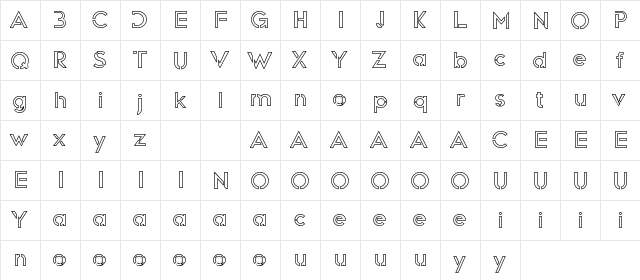
Myron Hector Demo Outline Regular
Design Context for Myron Hector Demo Outline Typeface
Myron Hector Demo Outline brings ornamental detail and strong personality to headlines and identities, where visual impact matters more than quiet functionality.
Font Pairing: Pair with a clean neutral sans-serif for body copy to let Myron Hector Demo Outline's character lead without overwhelming the composition.
Pro Tip: Use Myron Hector Demo Outline exclusively at display sizes — it was designed to be seen, not read at length. Let a neutral companion handle body copy.